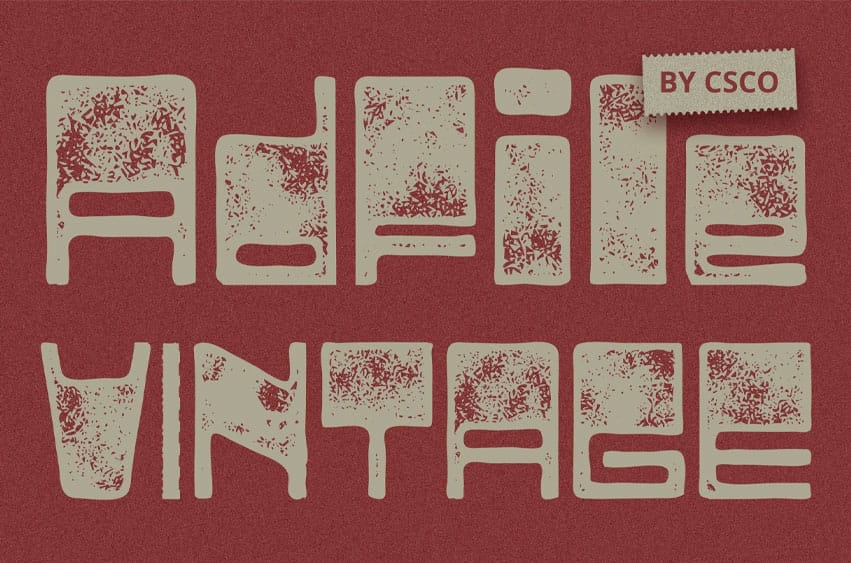
Adfile Vintage Font Sans Serif Reverse Contrast Design Adfile Vintage boasts a bold sans serif reverse contrast design, adding a unique twist to traditional fonts. Its unconventional layout makes it stand out from the crowd.
Funky Vibes With its funky vibes, This font exudes a sense of playfulness and creativity. Its unconventional style is perfect for projects that need a touch of eccentricity and flair.
Rough Stamp Drawn Effect The font is enhanced with a rough stamp drawn effect, giving it a vintage aesthetic reminiscent of old-school letterpress printing. Each character has a distinctive texture that adds character to your designs.
Perfect for Display This font is tailor-made for display purposes, making a bold statement in headlines, posters, and other eye-catching elements. Its retro-inspired design adds a nostalgic touch to any project.
Bold Retro Charm This font offers a fresh take on retro typography with its sans serif reverse contrast design and funky vibes. Its rough stamp drawn effect adds authenticity and character, making it an ideal choice for projects in need of a vintage-inspired flair.